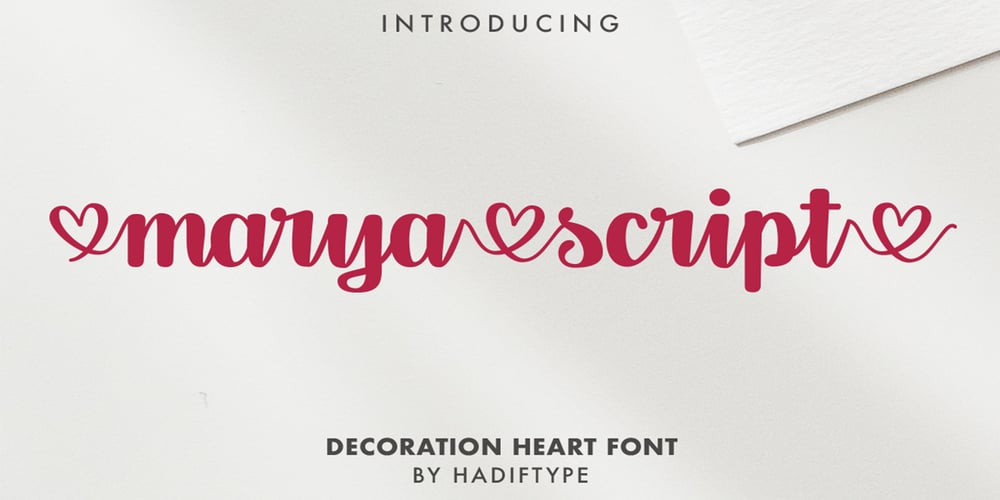
Marya Script
Marya Script font
Marya Script Font Family was designed by Said Ismail and published by Hadiftype. Marya Script contains 1 styles and family package options. Marya Script is modern lovely script font, bold and elegant touch. It comes with a handy set of opentype stylistic. You need a program that supports OpenType features such as Adobe Illustrator CS, Adobe Photoshop CC, Adobe Indesign, Microsoft Word 2010. It is perfect for logo, greetings, branding, quotes, prints, invitations and crafting. All lowercase letters include alternates, beginning & end swashes, that makes the font look fabulous!These are all coded with PUA Unicode. Mac users can use Font Book and Windows users can use Character Map to view and copy any of the extra characters to paste into your favourite text editor/app.